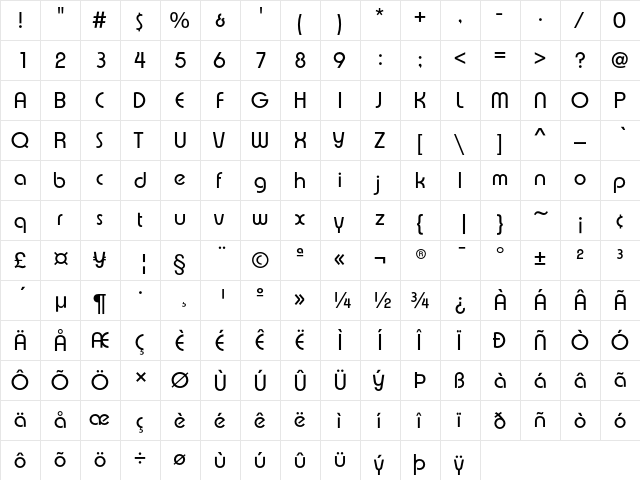
ExpressaEF Regular
Design Context for ExpressaEF Typeface
ExpressaEF is a composed and adaptable typeface that performs quietly and consistently across a wide range of design contexts.
Pro Tip: Pair ExpressaEF with a font of contrasting weight or personality to build a more expressive typographic hierarchy.